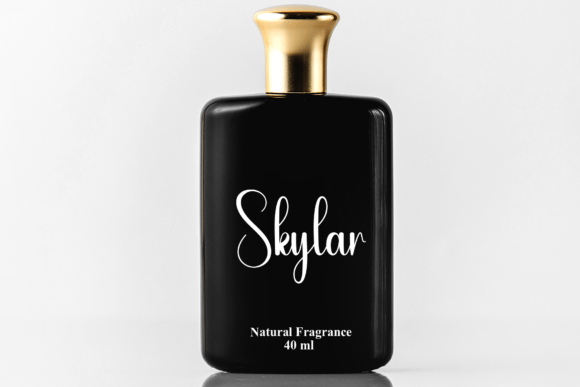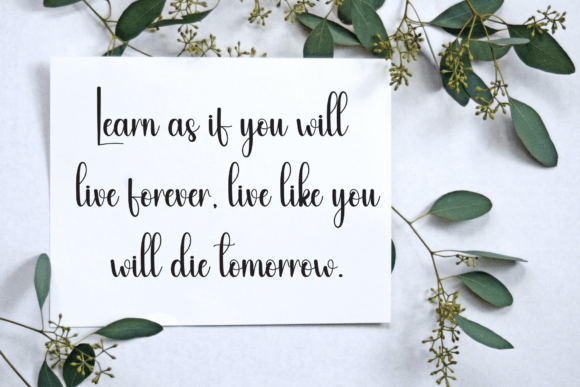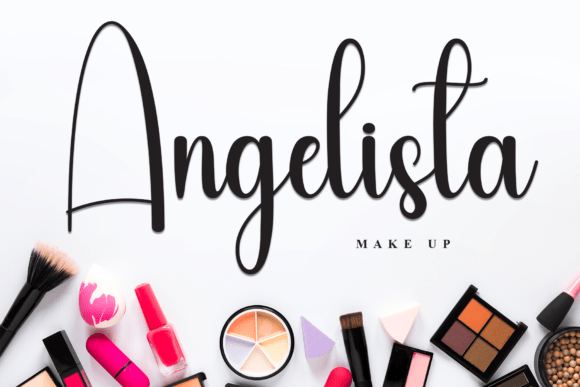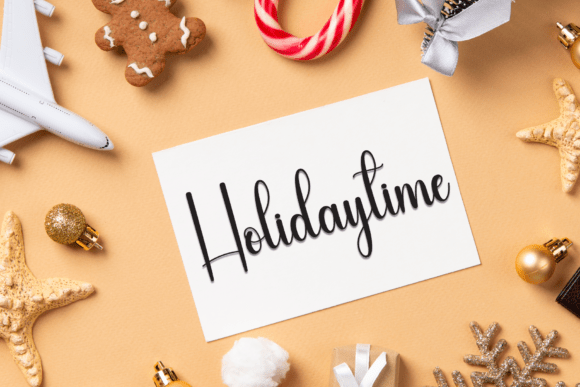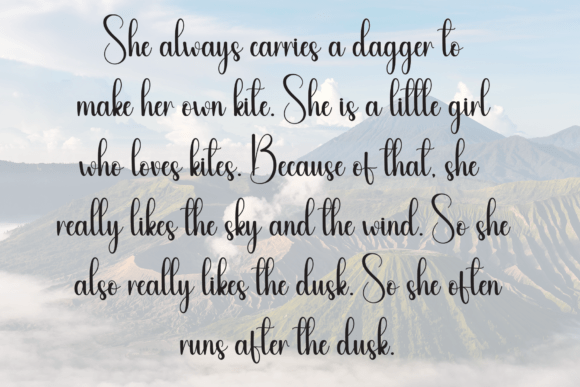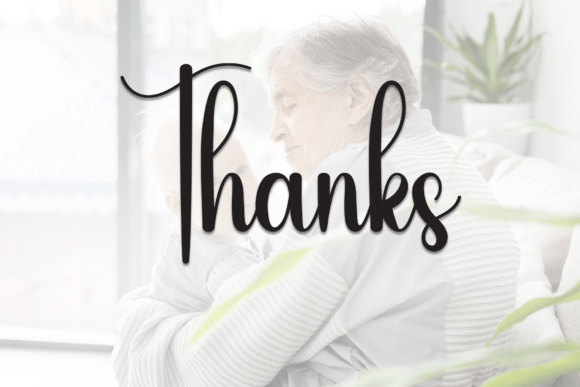
Introducing Grandma Font: The Perfect Blend of Whimsy and Friendliness
Are you tired of using the same old fonts for your creative projects? Look no further! We’re excited to introduce Grandma Font, a charmingly pleasant, handcrafted display font that’s sure to bring a dash of friendliness and personality to your designs. With its delightful blend of whimsy and playfulness, this font is perfect for crafting enchanting wedding invitations, heartfelt cards, and any other project that calls for a sprinkle of fun.
The Story Behind Grandma Font
Grandma Font is more than just a font – it’s a reflection of warmth, love, and playfulness. Its unique design is inspired by the charm of handwritten letters and the joy of creative expression. Each letter is carefully crafted to exude a sense of friendliness and approachability, making it perfect for designers and crafters who want to add a personal touch to their work.
What Makes Grandma Font So Special?
So, what sets Grandma Font apart from other fonts out there? Here are just a few features that make it truly special:
- Handcrafted with love: Each letter is carefully designed and crafted to ensure a unique and personal touch.
- Whimsical and playful: Grandma Font has a lively, engaging nature that’s sure to infuse your designs with a playful touch.
- Perfect for creative projects: Whether you’re designing wedding invitations, cards, or other creative projects, Grandma Font is the perfect choice.
- Easy to use: With its clear and legible design, Grandma Font is easy to read and use in a variety of contexts.
How to Use Grandma Font in Your Designs
Grandma Font is incredibly versatile and can be used in a variety of creative projects. Here are just a few ideas to get you started:
- Wedding invitations: Add a touch of whimsy and romance to your wedding invitations with Grandma Font.
- Handmade cards: Create heartfelt, handmade cards for special occasions with Grandma Font.
- Social media graphics: Use Grandma Font to add a playful touch to your social media graphics and posts.
- Branding and packaging: Use Grandma Font to add a personal touch to your branding and packaging designs.
Tips and Tricks for Getting the Most Out of Grandma Font
Here are a few tips and tricks to help you get the most out of Grandma Font:
- Experiment with different colors: Grandma Font looks great in a variety of colors, so don’t be afraid to experiment and find the perfect hue for your design.
- Mix and match with other fonts: Grandma Font pairs well with a variety of other fonts, so try mixing and matching to create a unique look.
- Use it sparingly: Grandma Font is a display font, so use it sparingly to add emphasis and interest to your designs.
In conclusion, Grandma Font is a charmingly pleasant, handcrafted display font that’s perfect for designers and crafters who want to add a touch of whimsy and friendliness to their creative projects. With its unique design, playful nature, and versatility, Grandma Font is sure to become a favorite in your font collection. So why wait? Download Grandma Font today and let your creative imagination dance to the rhythm of this endearing font!